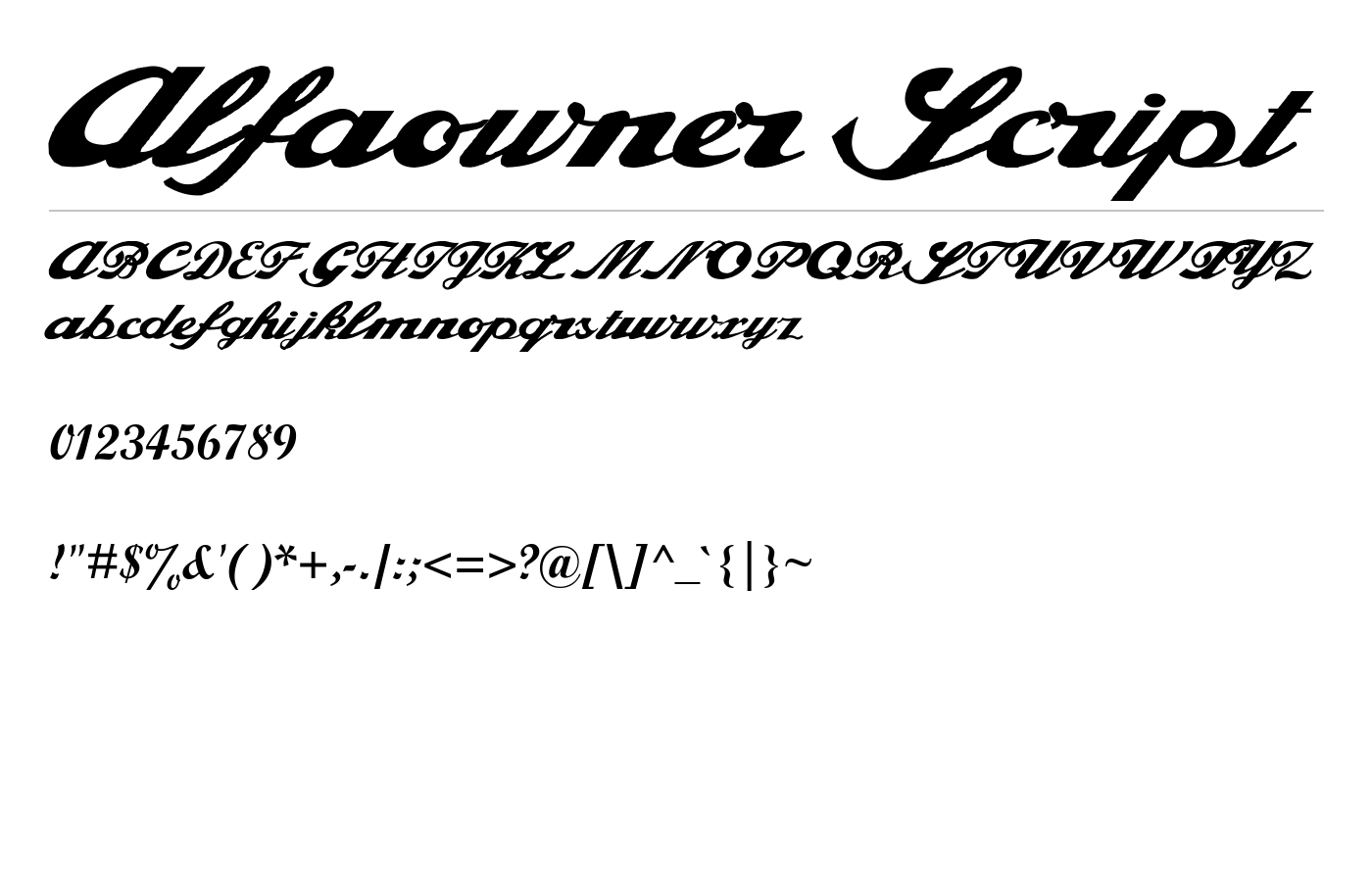
Alfaowner Script is a bold and elegant script font with a strong calligraphic style that features high contrast between thick and thin strokes. Its flowing, connected letterforms convey a vintage yet confident personality, making it ideal for sophisticated branding, logos, and headlines that need a stylish and dynamic impact. This font works especially well in fashion, luxury, and editorial designs where a sense of classic charm with a modern edge is desired.
Alfaowner Script Font
About Alfaowner Script Font
| Font family | Alfaowner Script Font |
| Designer | High-Logic - Erwin Denissen 1999 |